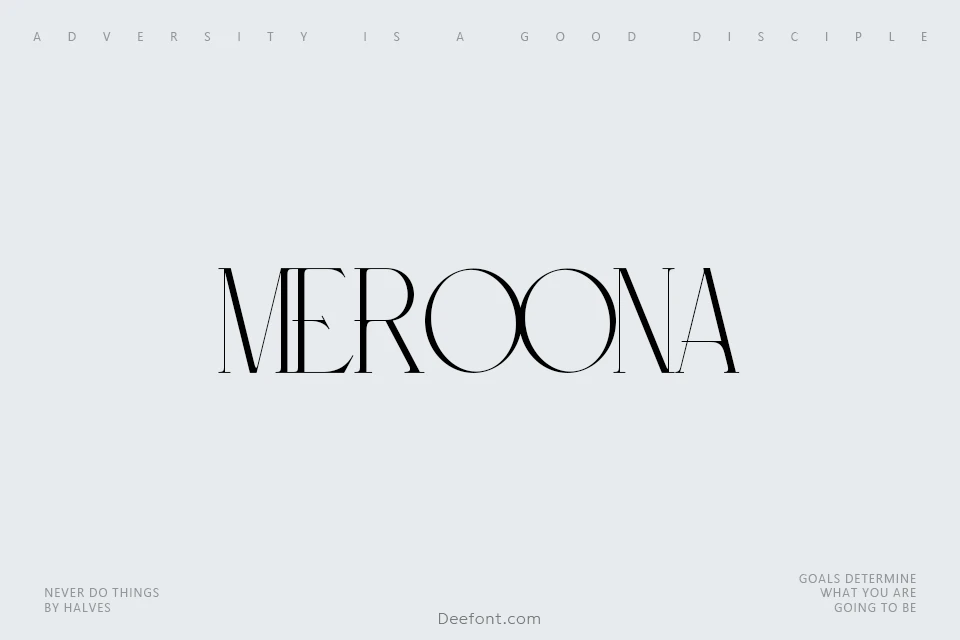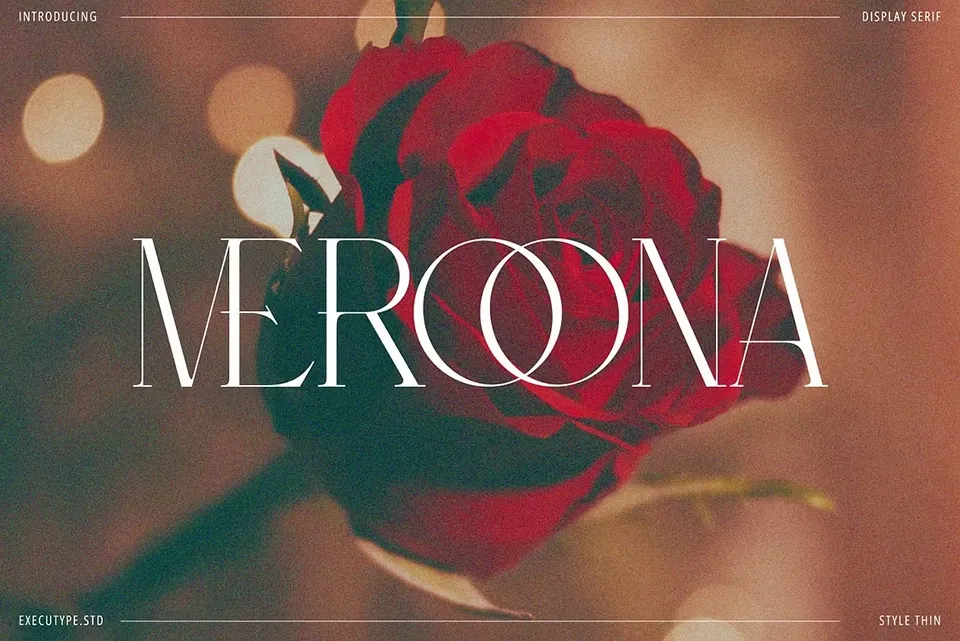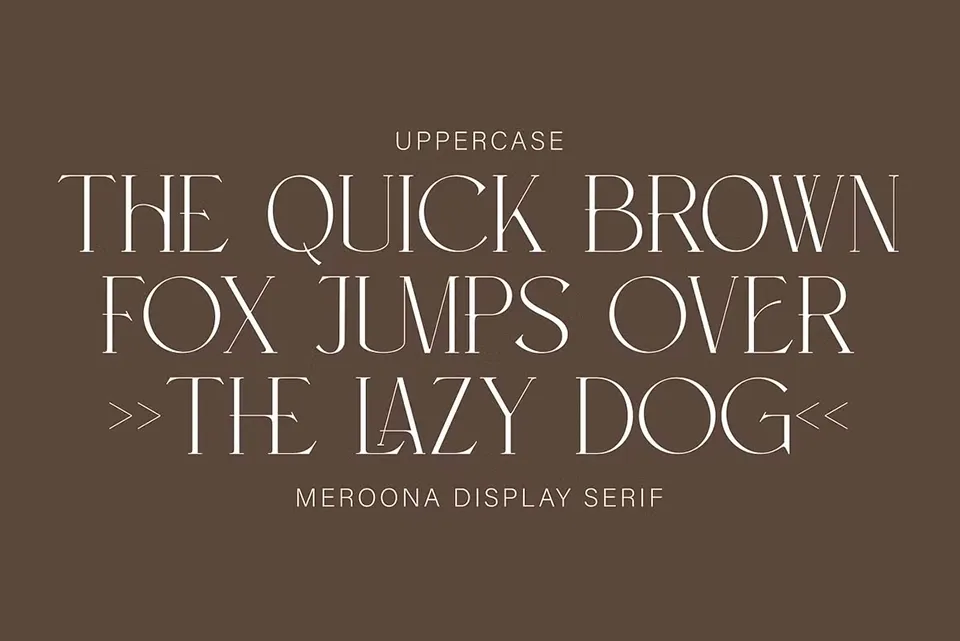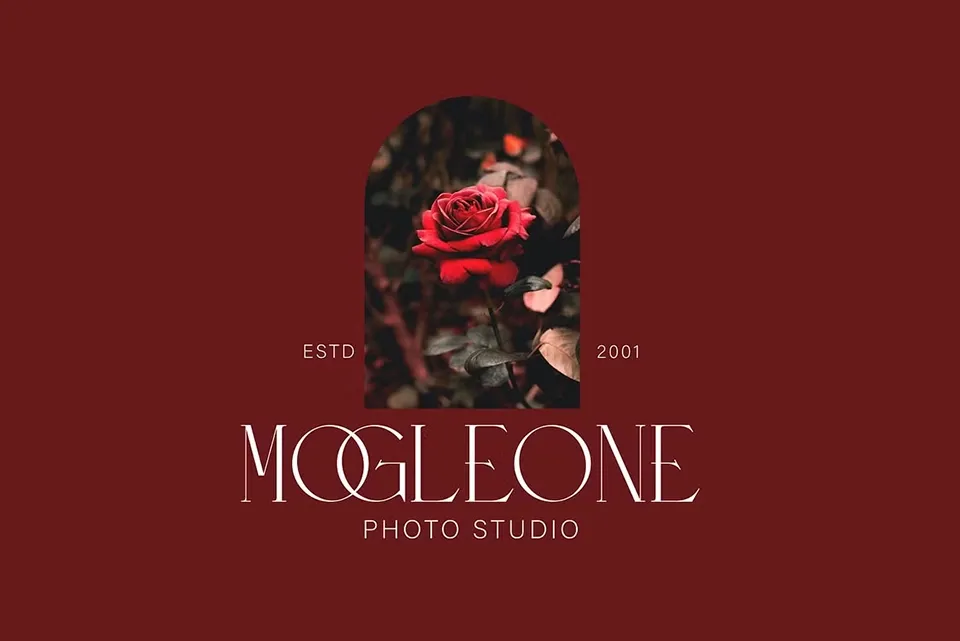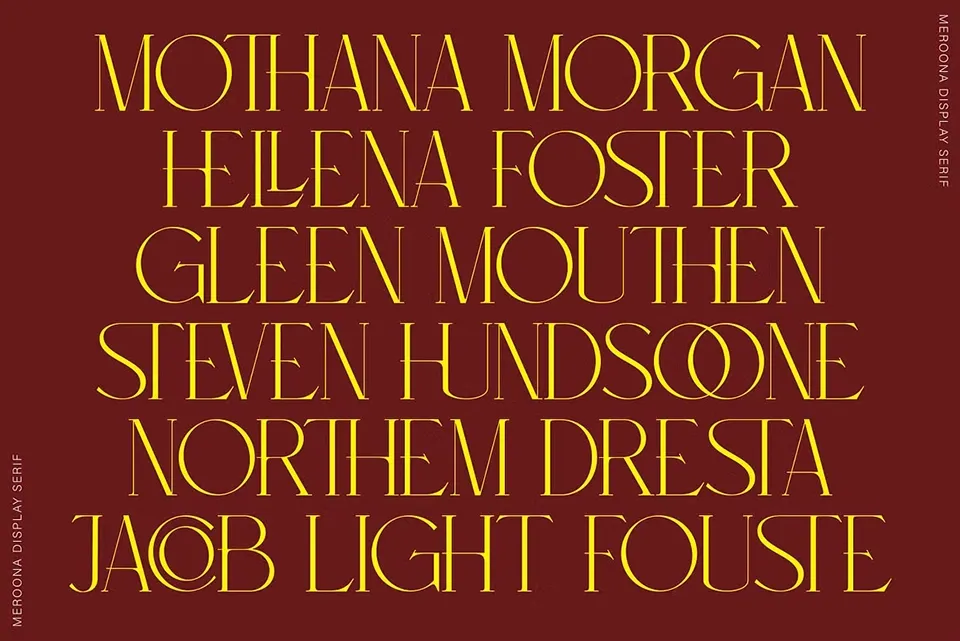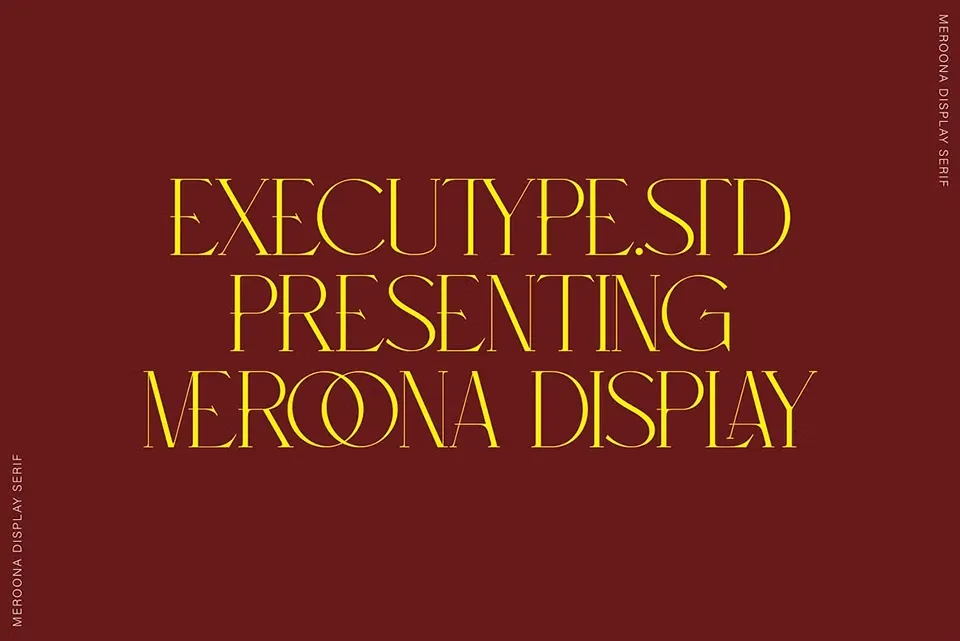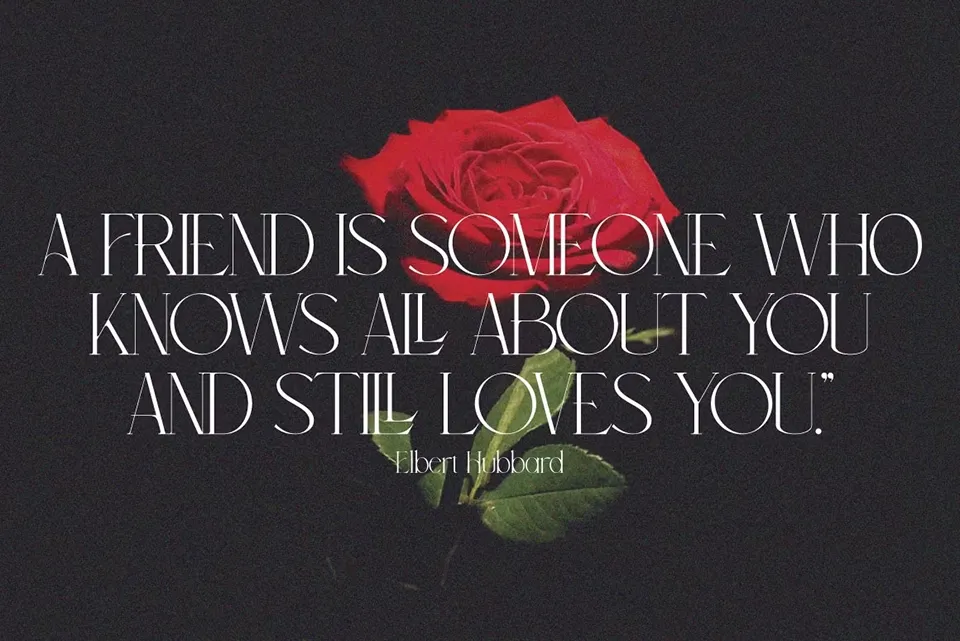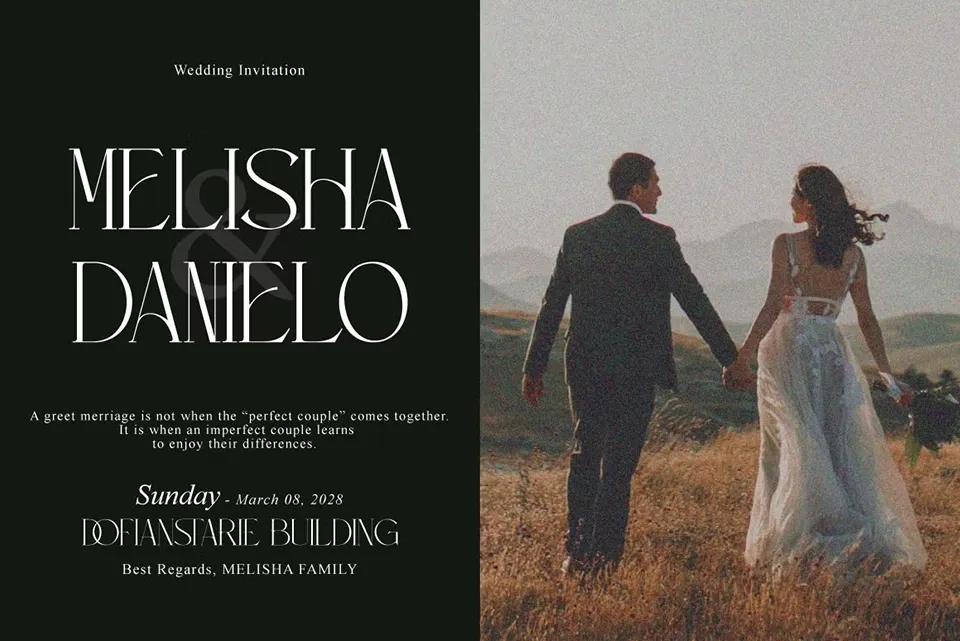
Meroona Display Font
Meroona Display Serif Font is a modern serif typeface designed to exude sophistication and elegance. Crafted by Feri Feriyal, it features sharp triangular serifs and distinctive letterforms that make it stand out in both large display settings and smaller text applications. The refined thin lines and unique character shapes lend a luxurious and contemporary feel, perfect for branding, editorial design, and striking logos. Meroona’s versatility ensures your designs remain both impressive and highly readable, adding a touch of class to any creative project. Whether for print or digital use, Meroona Display Serif elevates your visual identity with timeless style.